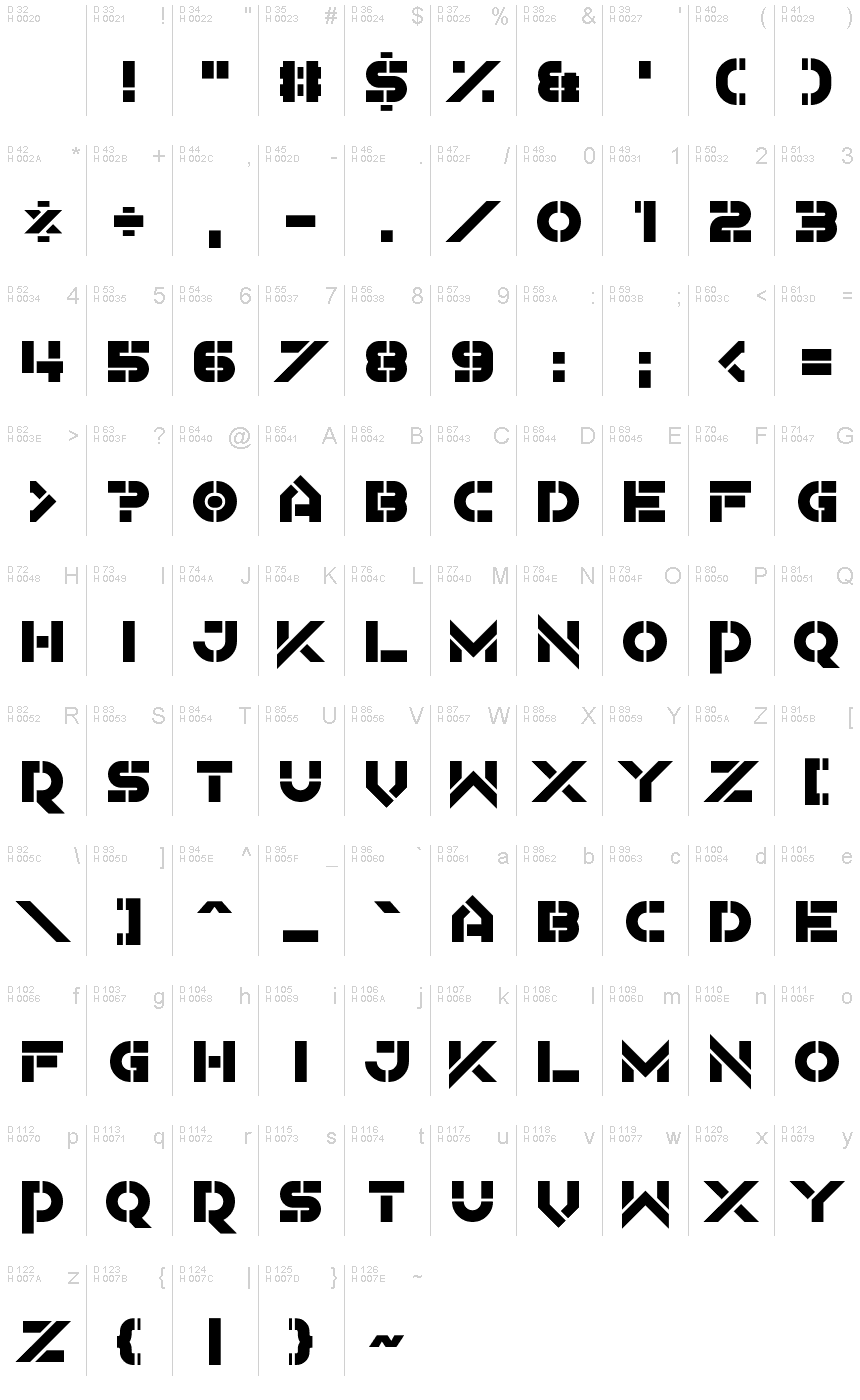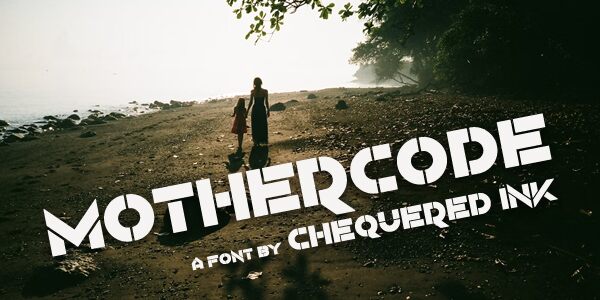
Mothercode
Mothercode, the bold and expanded stencil display font created by Chequered Ink, is the perfect typeface for projects that require an edgy and modern look. Its uniquely designed characters make it stand out in any creative project. This font is perfect for branding materials, logos, headlines, posters, social media graphics and much more. The boldness of this font makes it ideal for projects that require a strong statement or message. With its unique style and versatility, Mothercode is sure to attract attention wherever it's used. Make your designs unforgettable with Mothercode!
Mothercode by Chequered Ink.